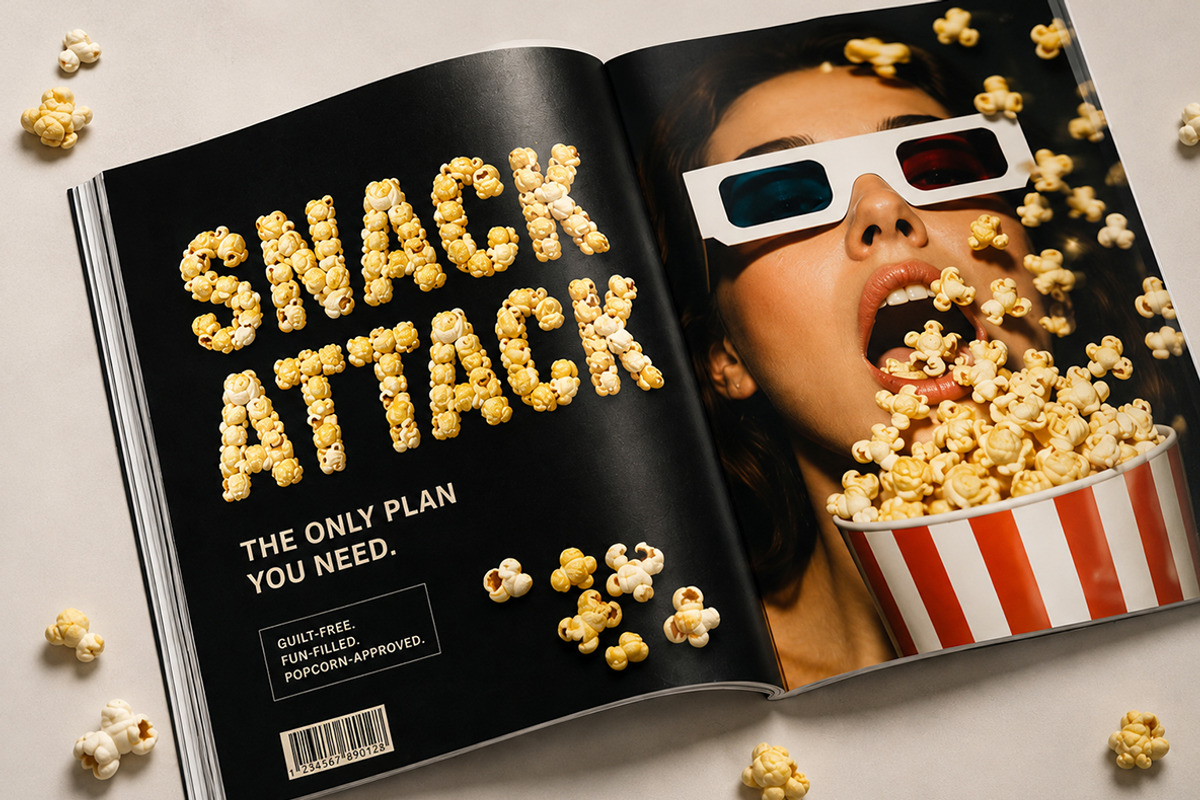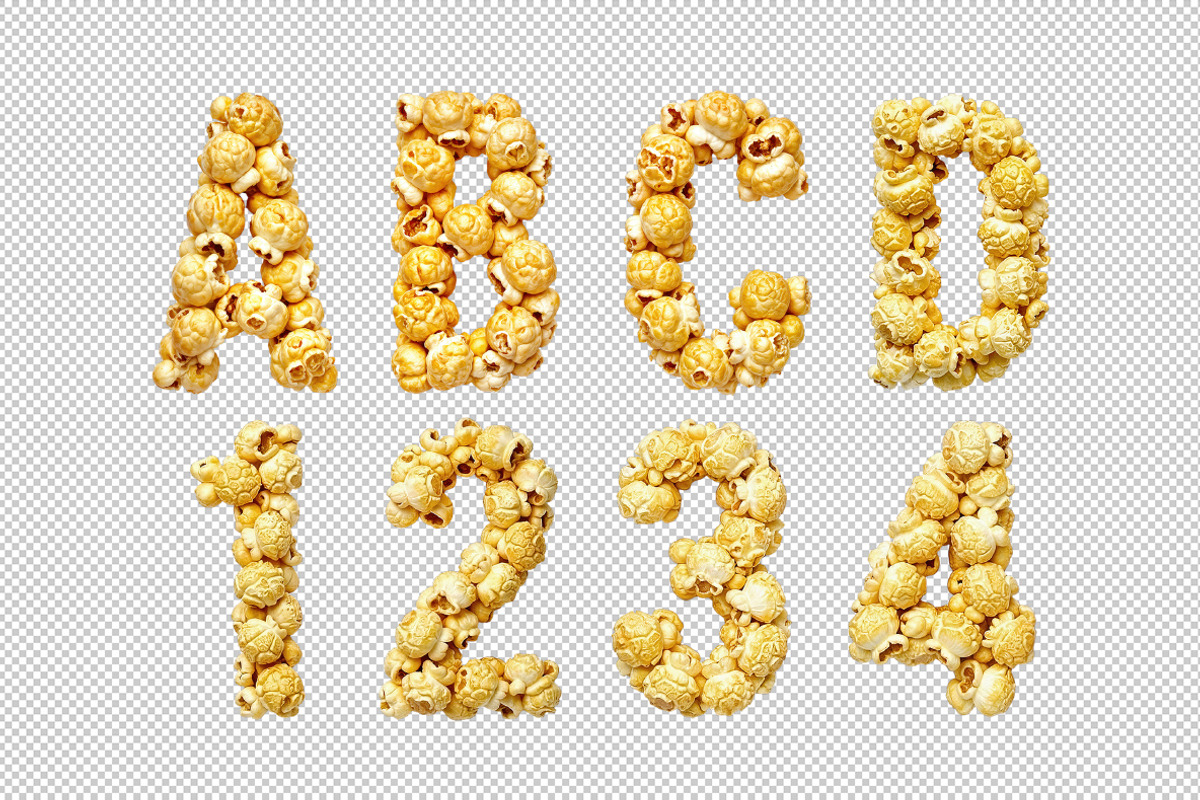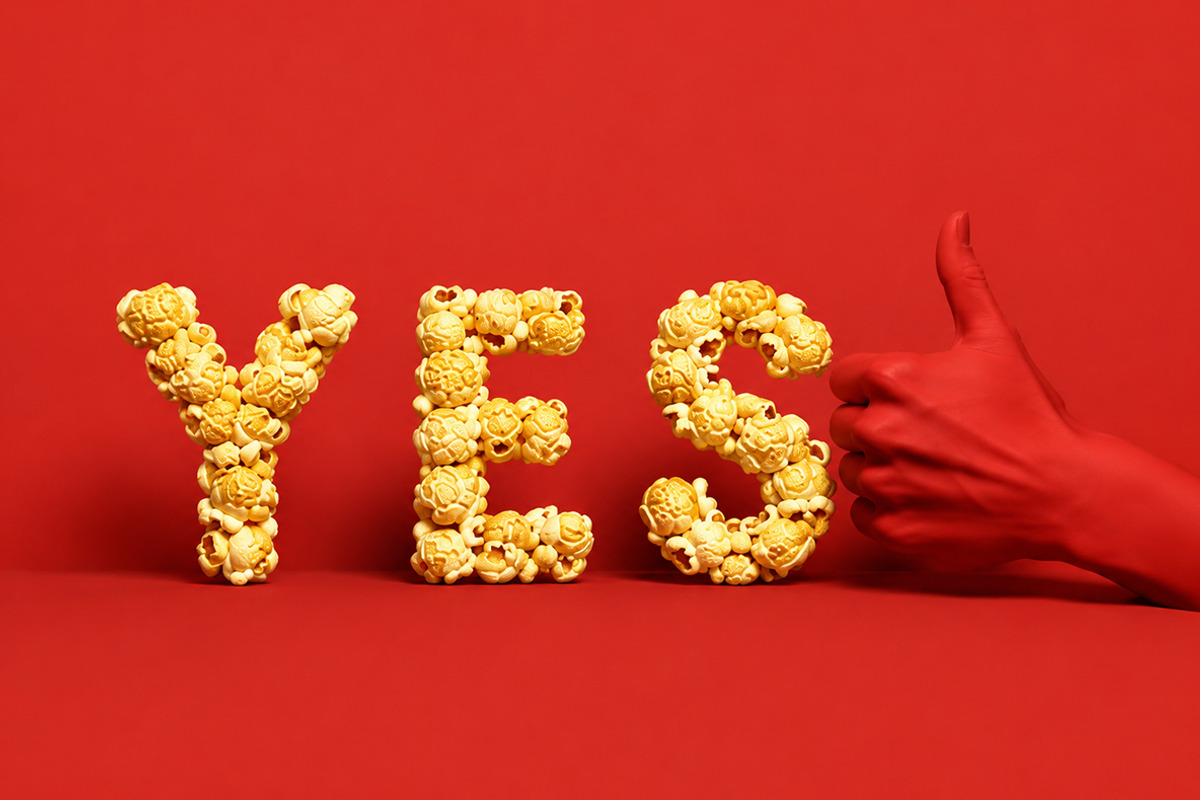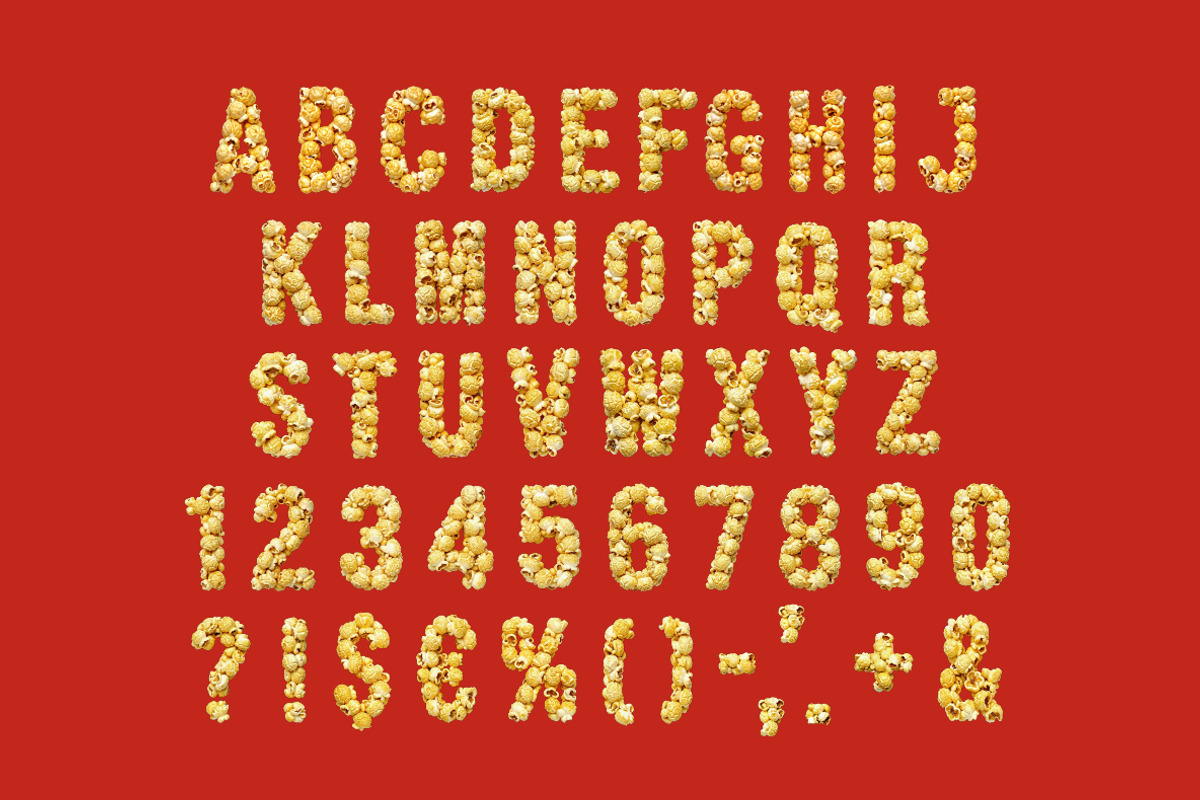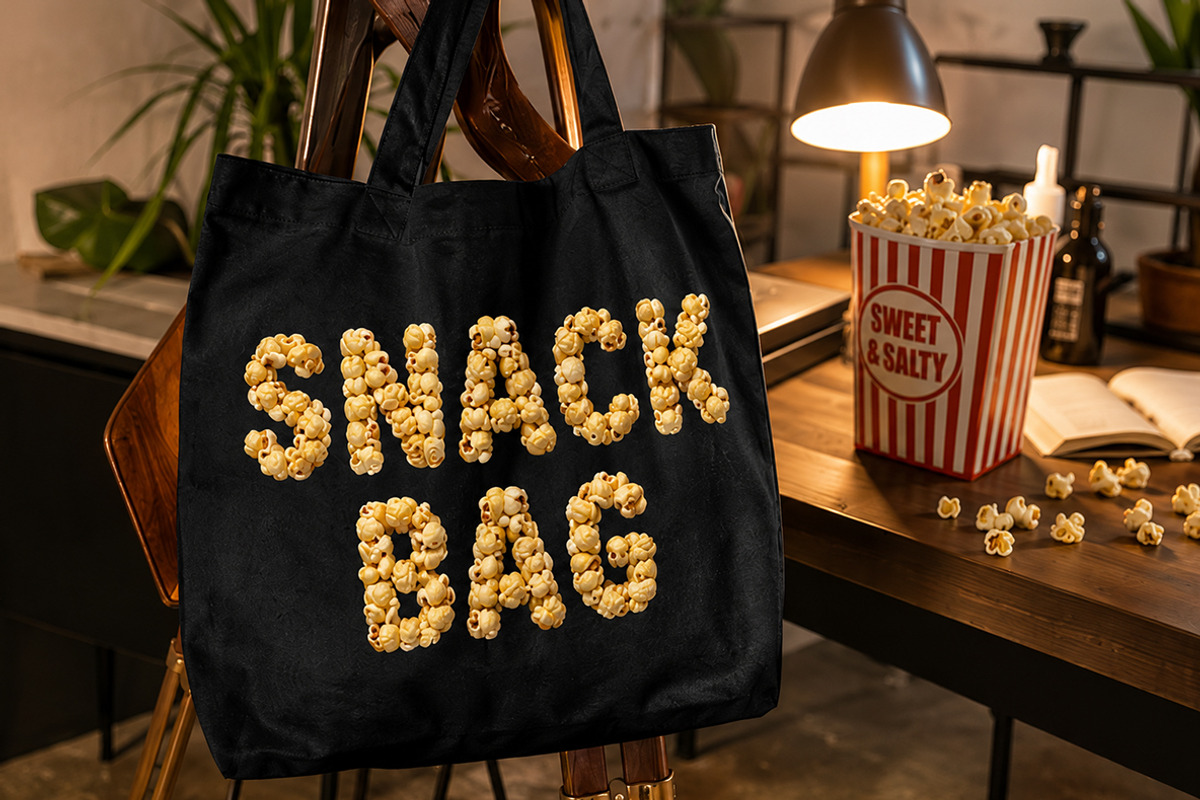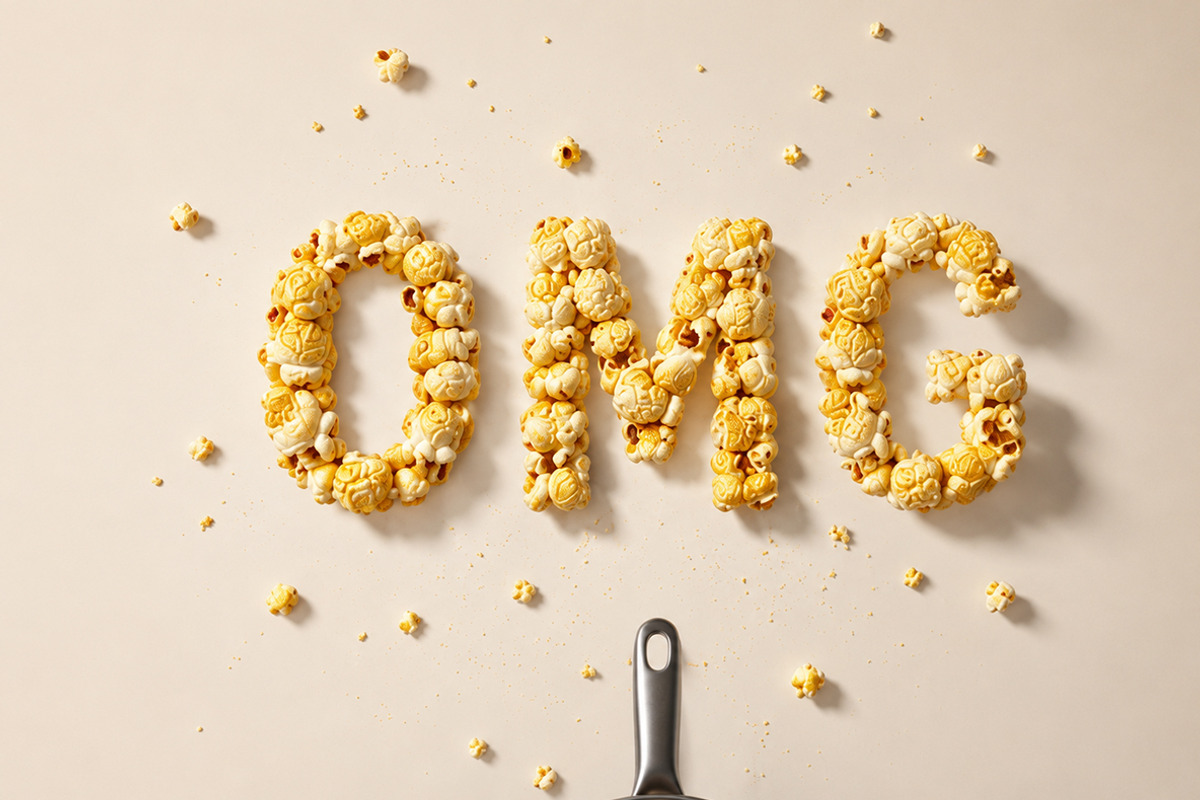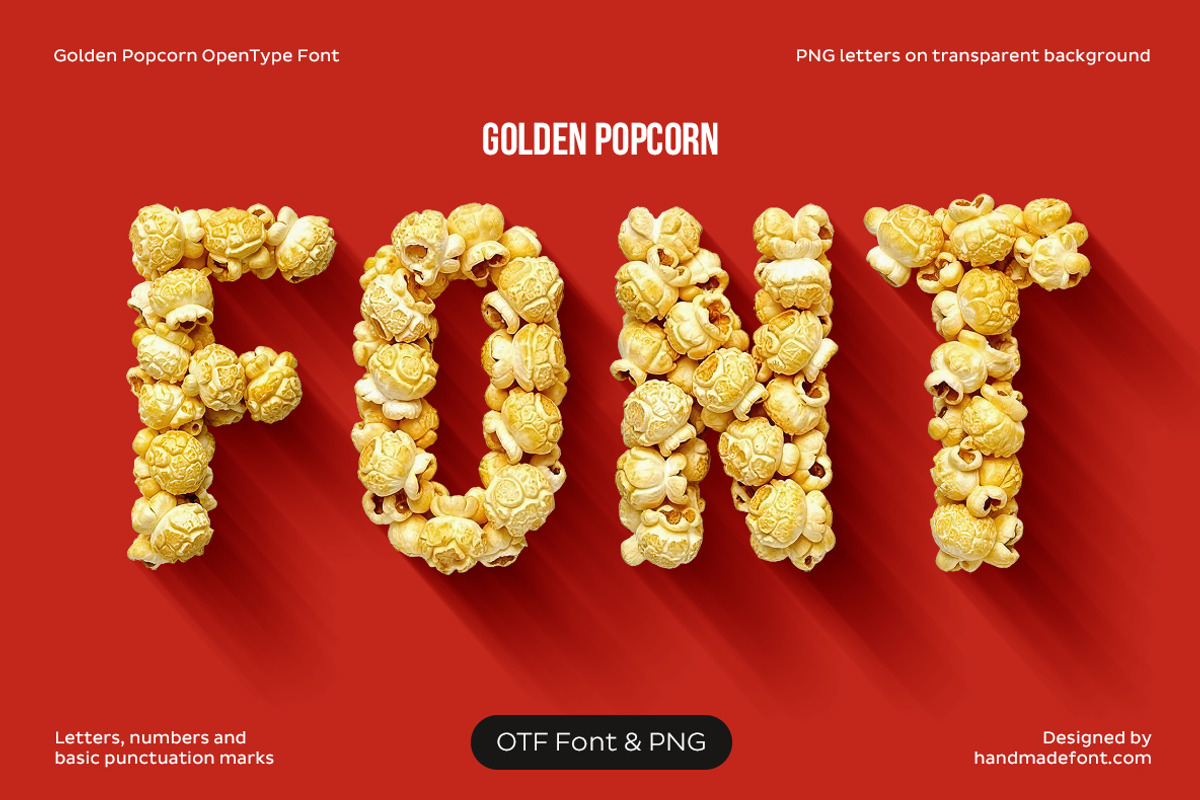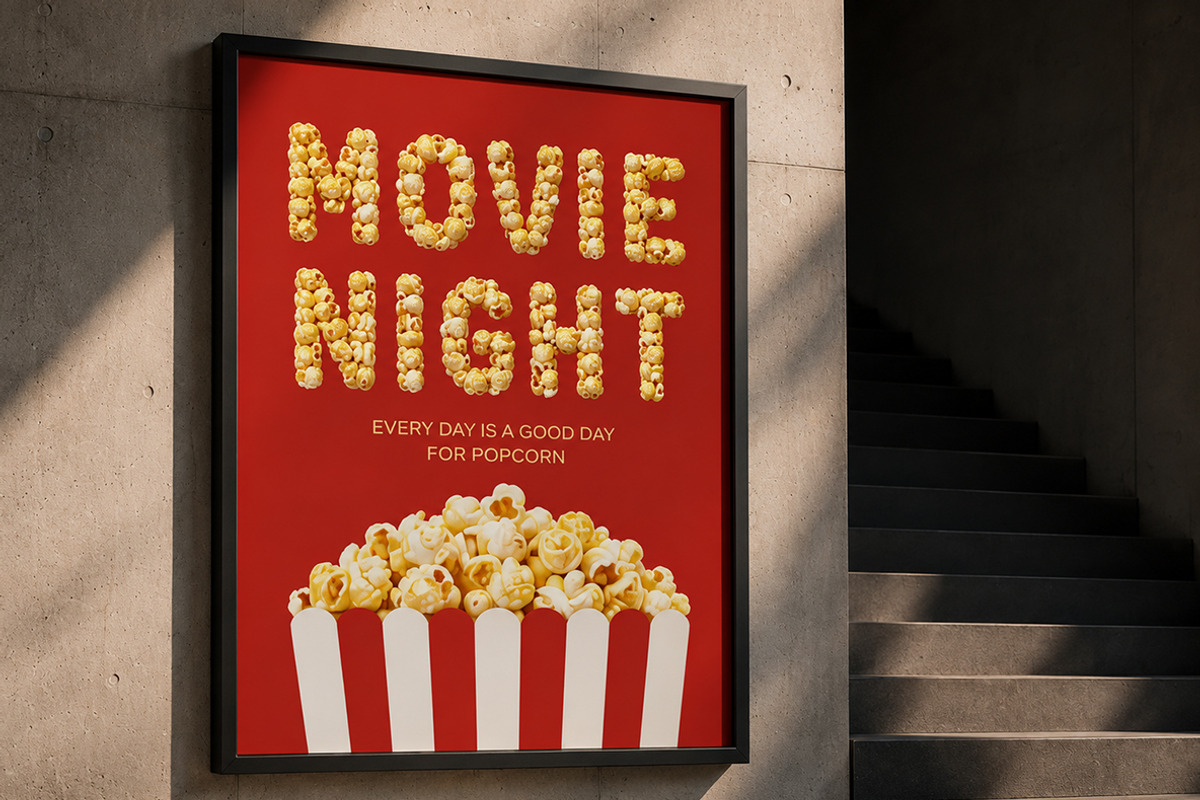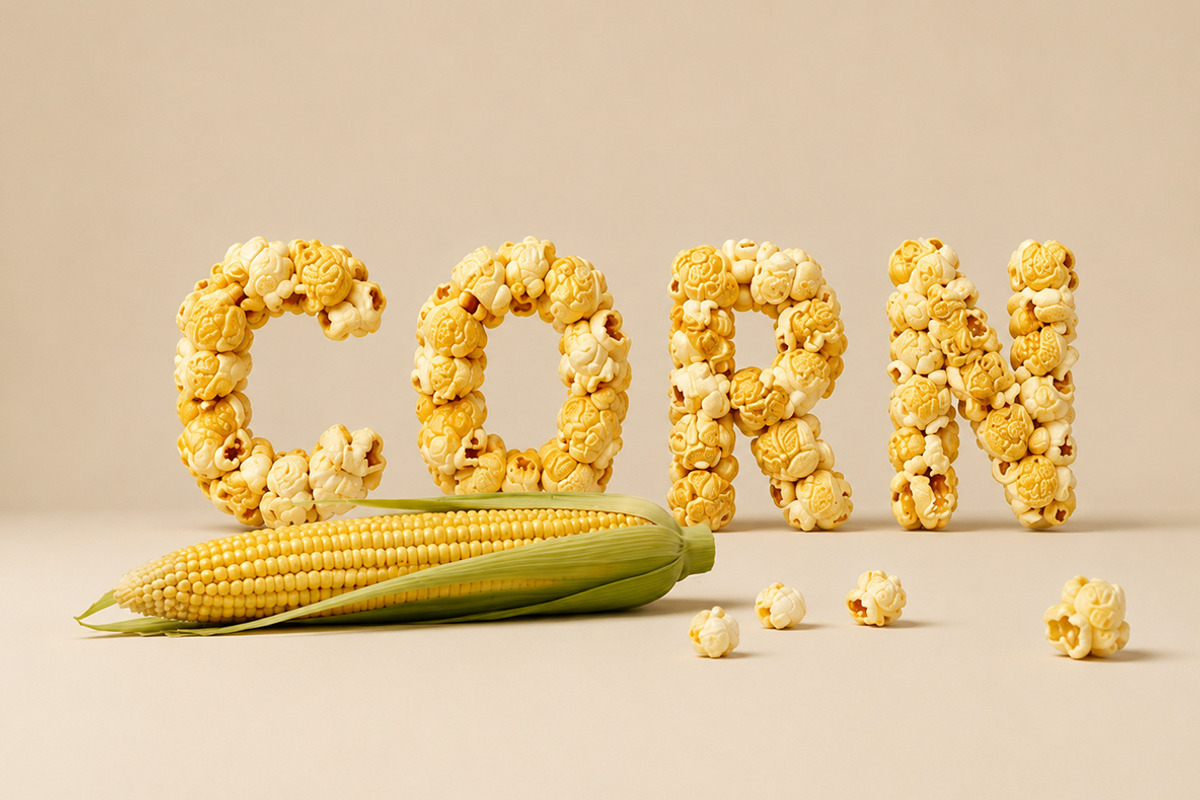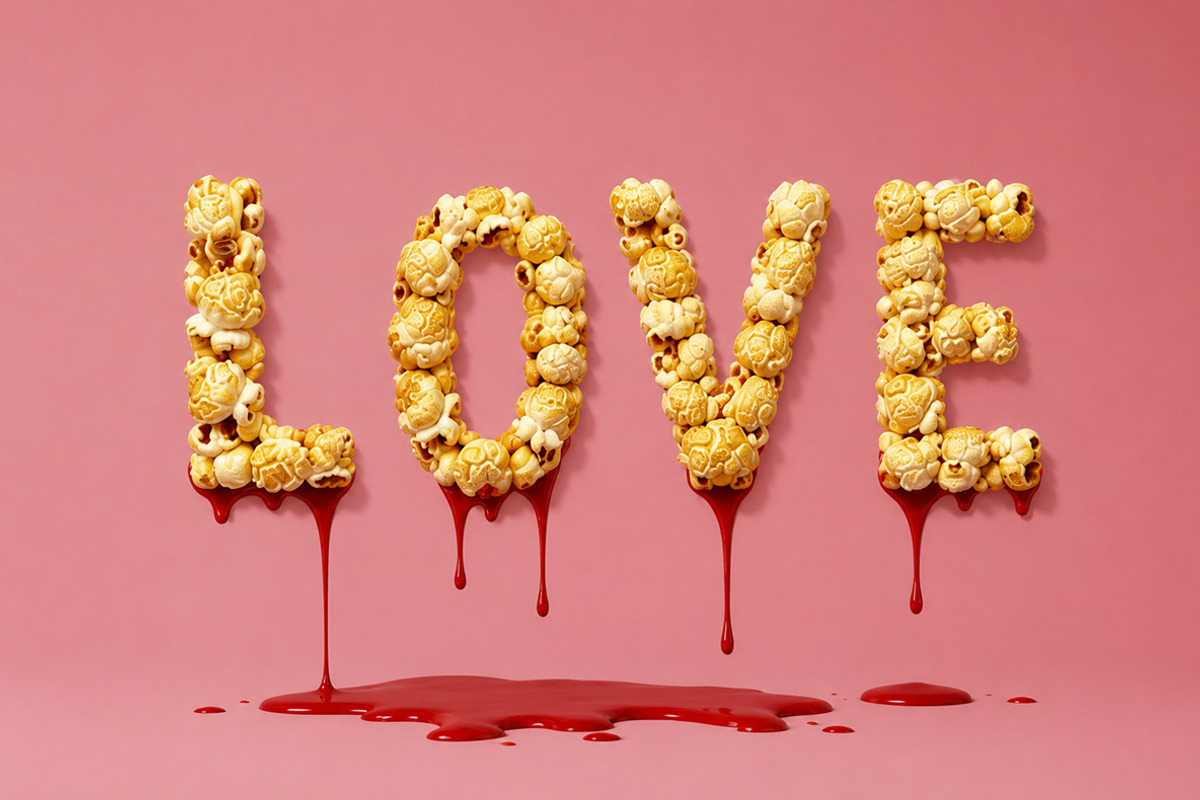
Golden Popcorn Font
Golden Popcorn Font is a playful, handcrafted display typeface built entirely from realistic buttery popcorn, bringing a fun cinematic atmosphere to every design. Perfect for movie posters, snack packaging, food branding, festival graphics, social media, invitations, and eye-catching headlines, it instantly creates a cheerful and memorable visual impact. The package includes the complete OpenType (OTF) font for effortless typing, plus every character provided individually as high-resolution PNG files with transparent backgrounds for unlimited creative freedom. Whether you're designing for entertainment, advertising, or delicious food-themed projects, Golden Popcorn Font delivers a fresh, humorous, and irresistibly crunchy personality that always steals the spotlight.